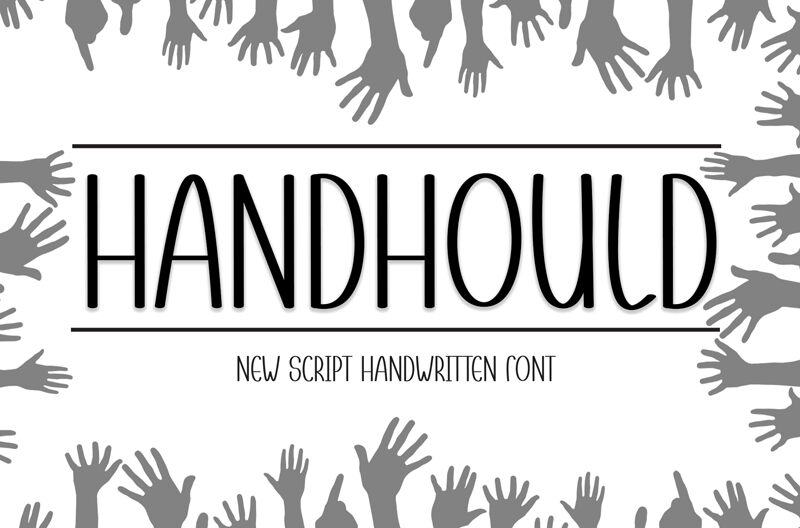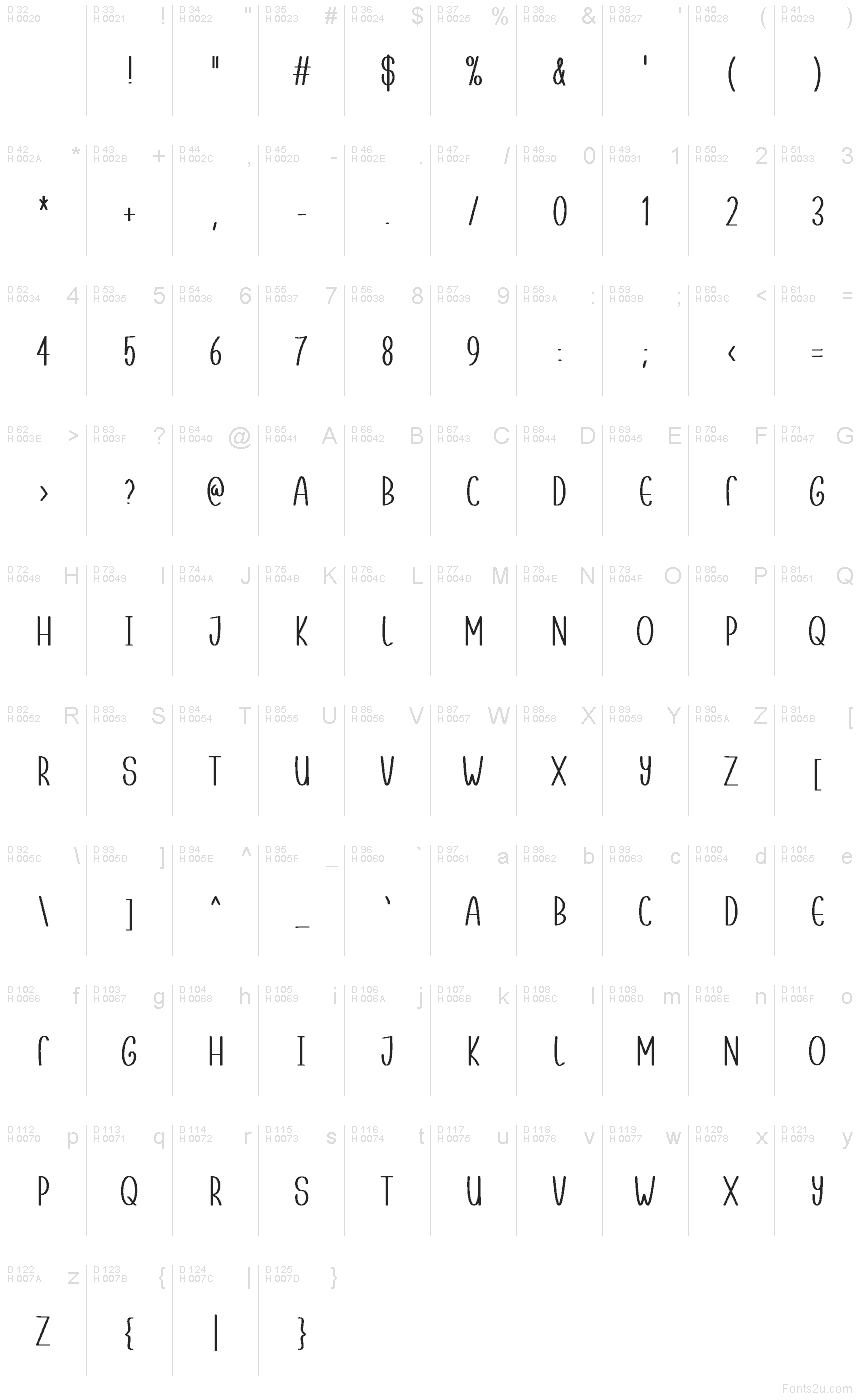
Handhould
Handhould font by Creatype Designer is a free handwritten typeface that tackles a classic challenge: getting a friendly, human touch into tight spaces. Its tall, slender letters feel like neat marker strokes—smooth, rounded, and evenly paced—so headlines stack cleanly and labels stay legible without feeling cramped. The rhythm is calm and upright, with just enough handmade wobble to keep it warm.
This free font shines on product labels, narrow posters, cafe menus, stickers, planner headers, recipe cards, and social graphics. Using Handhould, you can dial in a little extra tracking for signage, or keep it snug for compact tags. For a tidy combo, pair it with a clean geometric sans to handle small body copy while Handhould carries the friendly headlines.